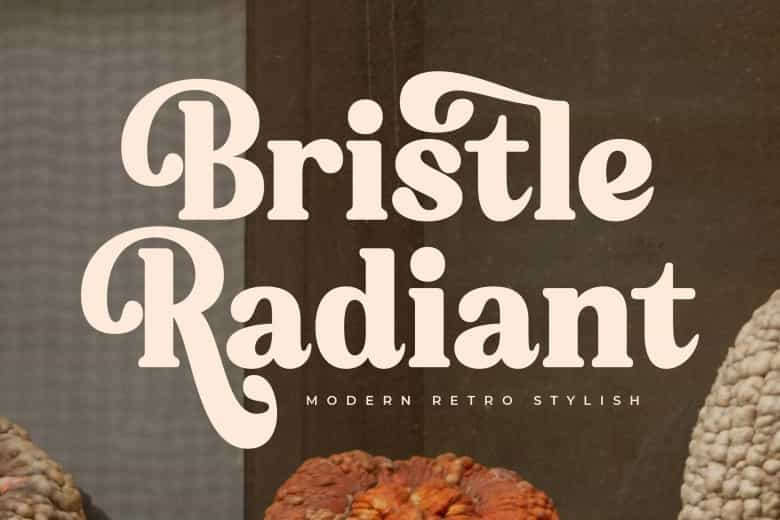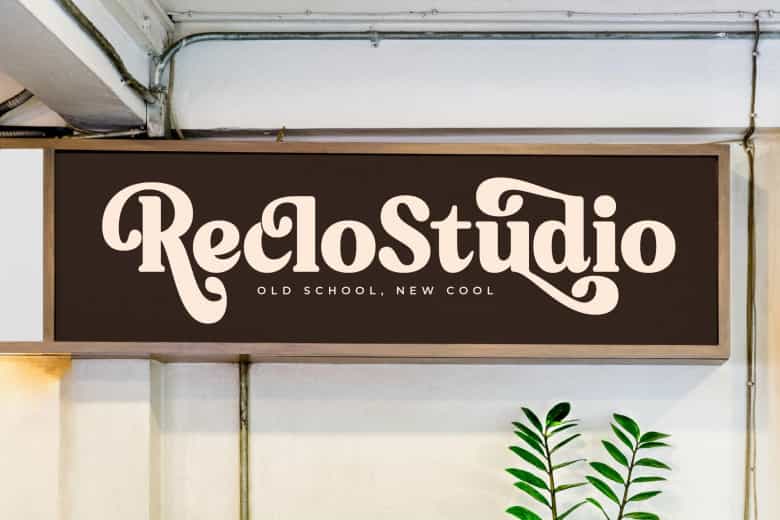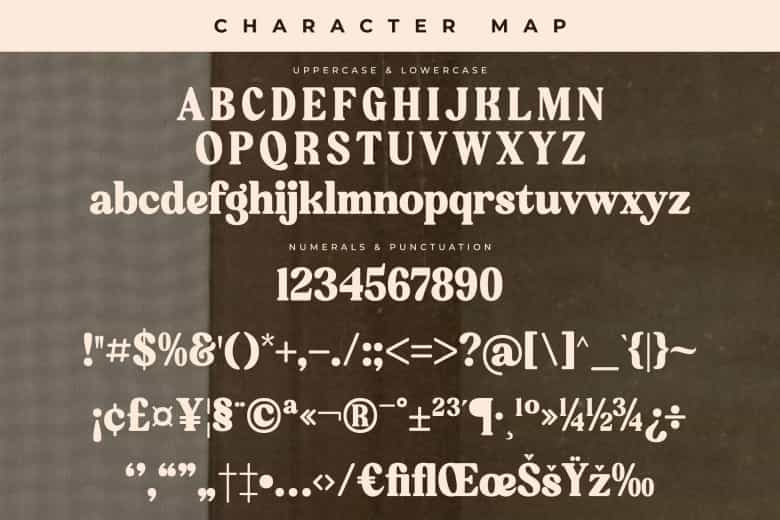
Bristle Radiant is a modern yet classic font, which blends sophistication with modern flair. With its sharp lines and balanced proportions, this font is well suited to editorial designs as well as logos, branding and branding projects. Bristle Radiant’s timeless appeal and versatility will elevate any project with grace and professionalism.